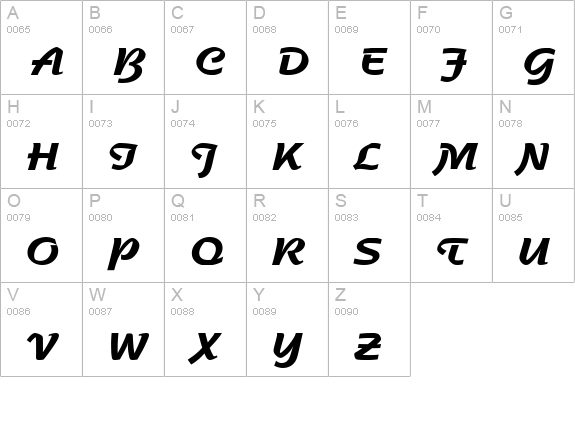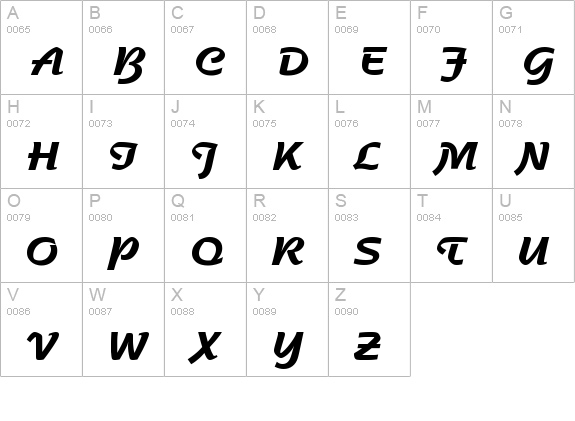
Sentimental Script SSi Bold is a strong, high-contrast variant in the Sentimental typeface family \xE2\x80\x94 well suited to headlines, attention-grabbing titles, and strong calls-to-action.
Sentimental Script SSi Bold font is a captivating and elegant typeface that effortlessly captures the essence of sentimentality and nostalgia. Its bold and flowing letterforms exude a sense of romance and emotion, making it perfect for any design project that requires a touch of heartfelt elegance. With its unique and intricate design, Sentimental Script SSi Bold font adds a touch of sophistication to any creative endeavor. Whether used for wedding invitations, greeting cards, branding materials, or editorial designs, this font will bring a sense of warmth and charm to your work. What sets Sentimental Script SSi Bold font apart is not only its exquisite design but also its accessibility. It is freely available to download at FontsMarket.com, allowing designers and creatives of all backgrounds to access and incorporate this beautiful typeface into their designs without any limitations. The versatility of Sentimental Script SSi Bold font is truly remarkable. Its bold strokes and graceful curves make it equally suitable for both digital and print applications. Whether displayed on a screen or printed on paper, this font retains its impeccable legibility and elegance. The attention to detail in Sentimental Script SSi Bold font is evident in every letterform. Each stroke is carefully crafted to create a harmonious flow and balance, resulting in a truly stunning typeface that is sure to captivate and inspire. So, if you are looking for a font that combines sentimentality, elegance, and accessibility, look no further than Sentimental Script SSi Bold font. Download it freely at FontsMarket.com and let its enchanting beauty elevate your design projects to new heights.